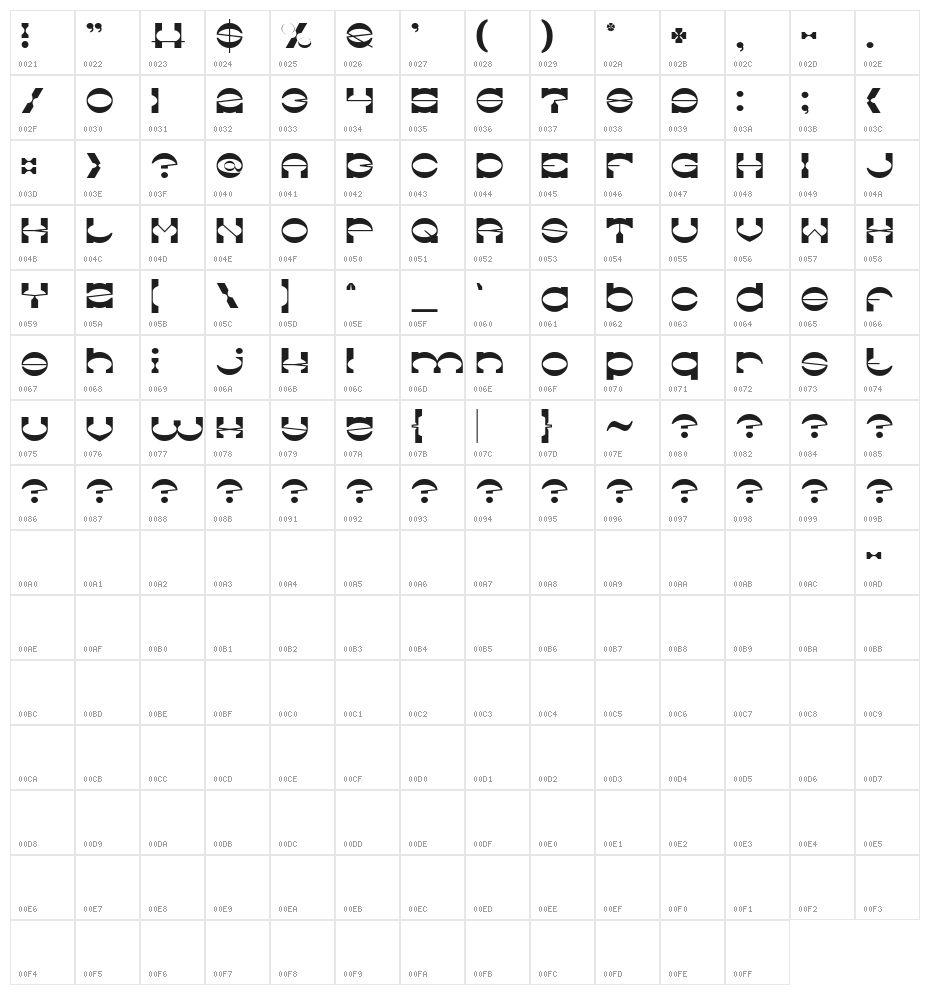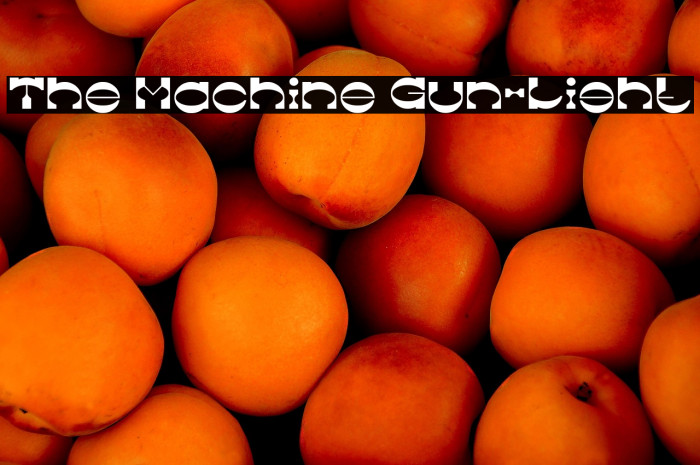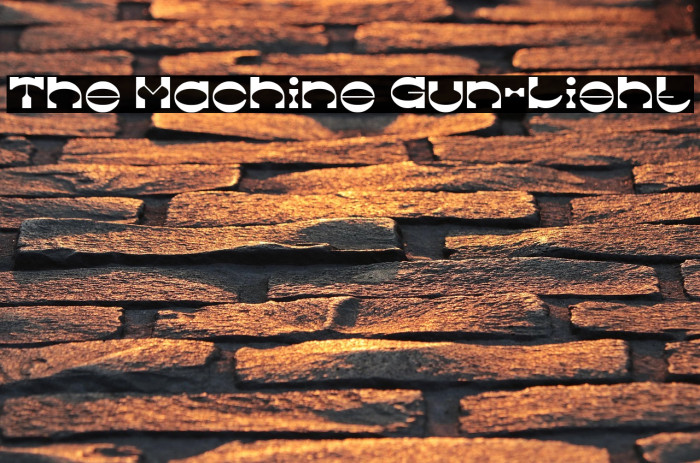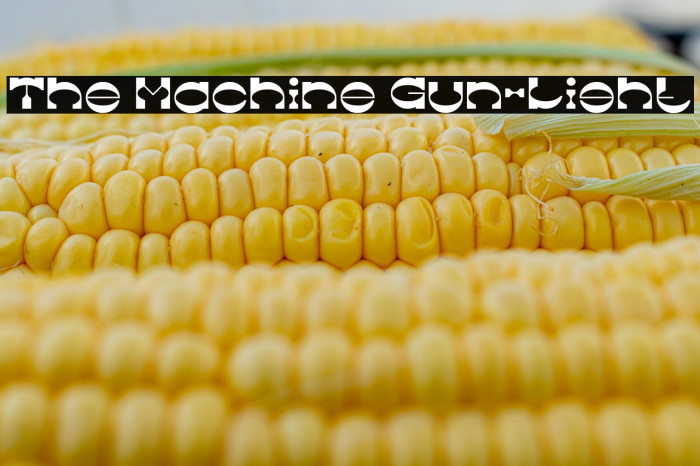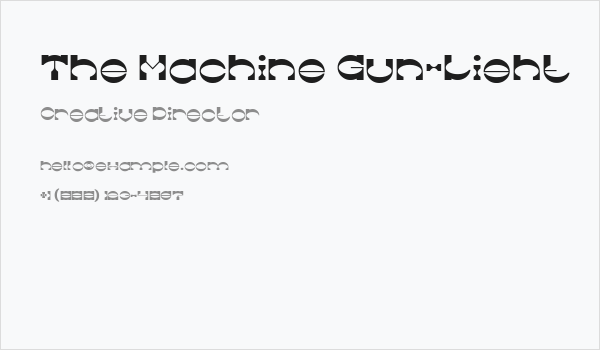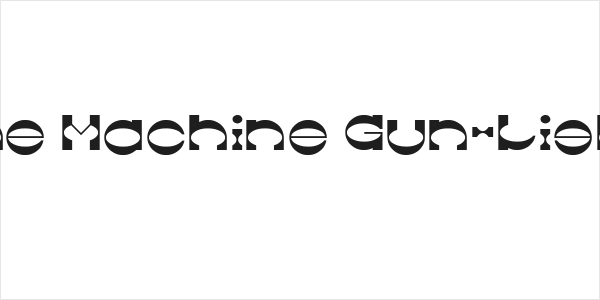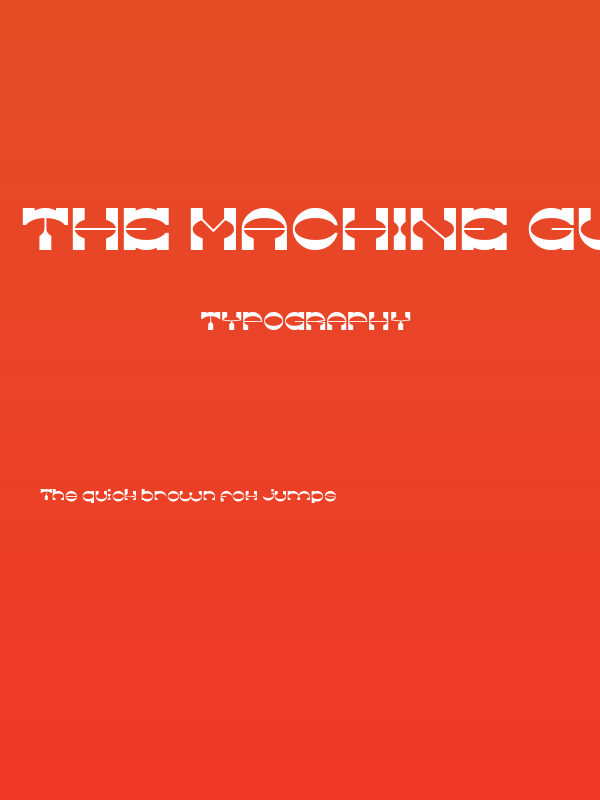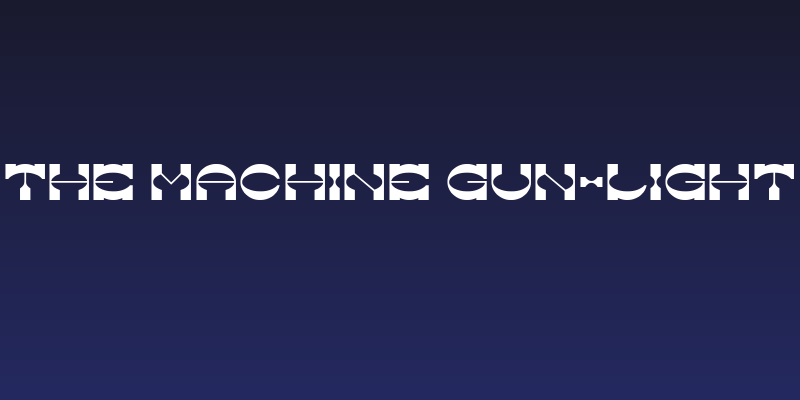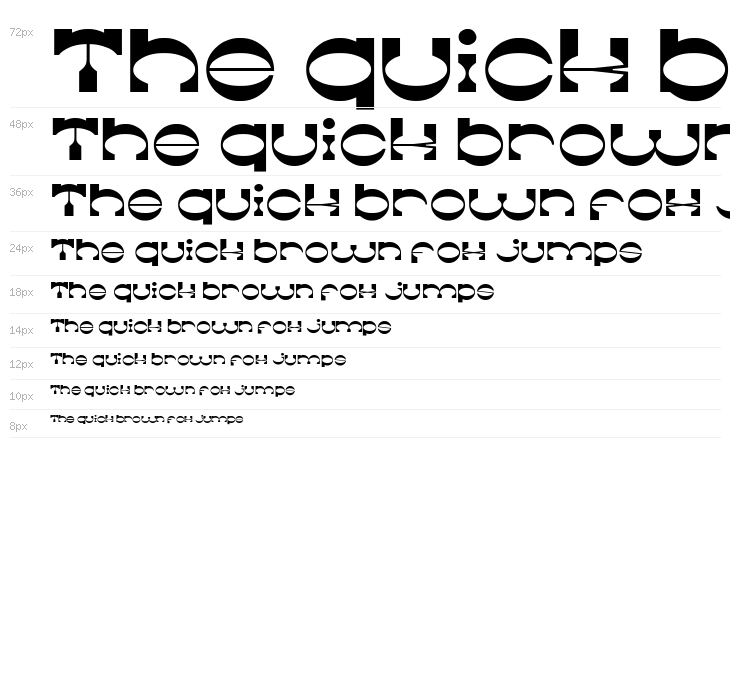
The Machine Gun-Light Font
The Machine Gun-Light Description
This font exhibits a bold and futuristic design with geometric shapes and sharp angles. The characters are constructed with a combination of thick and thin strokes, creating a high contrast appearance. The uppercase letters are particularly striking, with a unique blend of circular and rectangular elements. The lowercase letters maintain a consistent style, offering a cohesive look across the typeface. Numbers and special characters follow the same design principles, ensuring uniformity. This font's distinct style makes it suitable for eye-catching designs.
| Proposed Projects | Ideal for sci-fi movie posters, video game titles, and modern branding projects. |